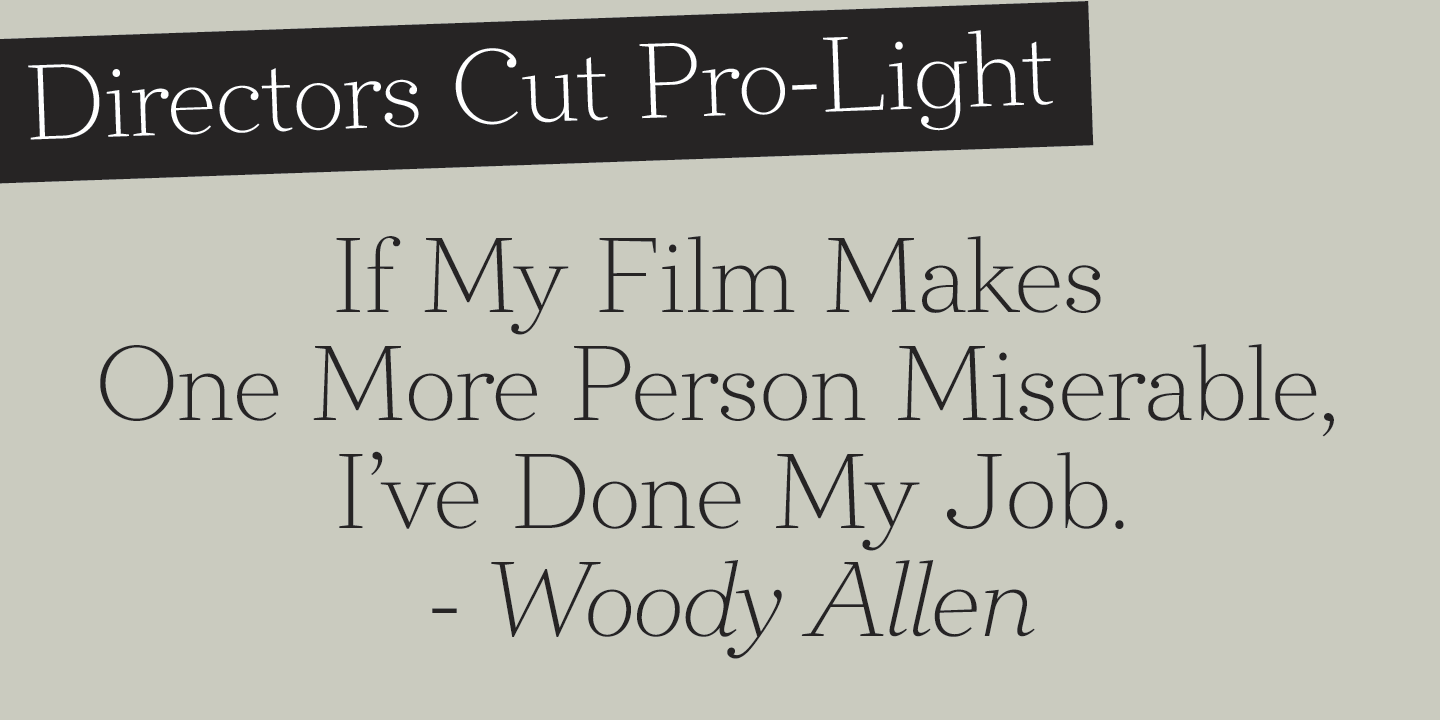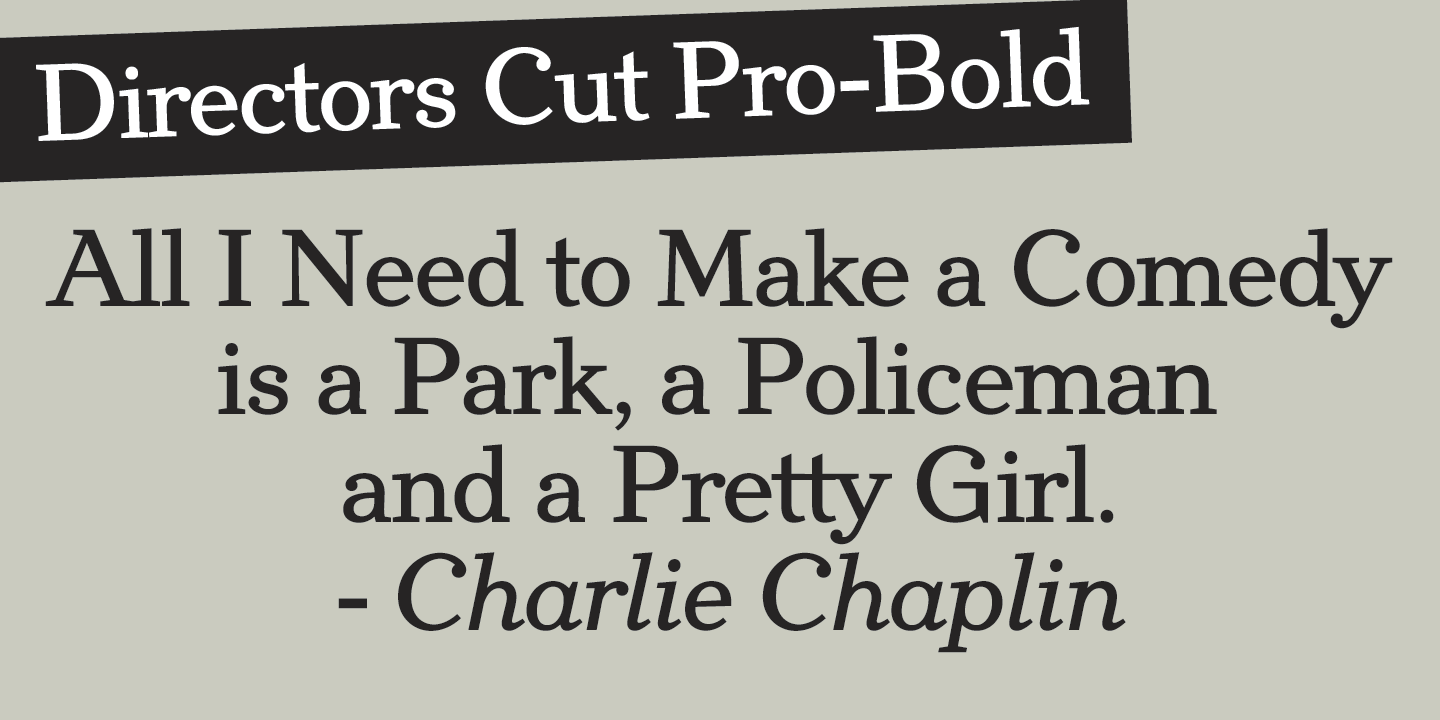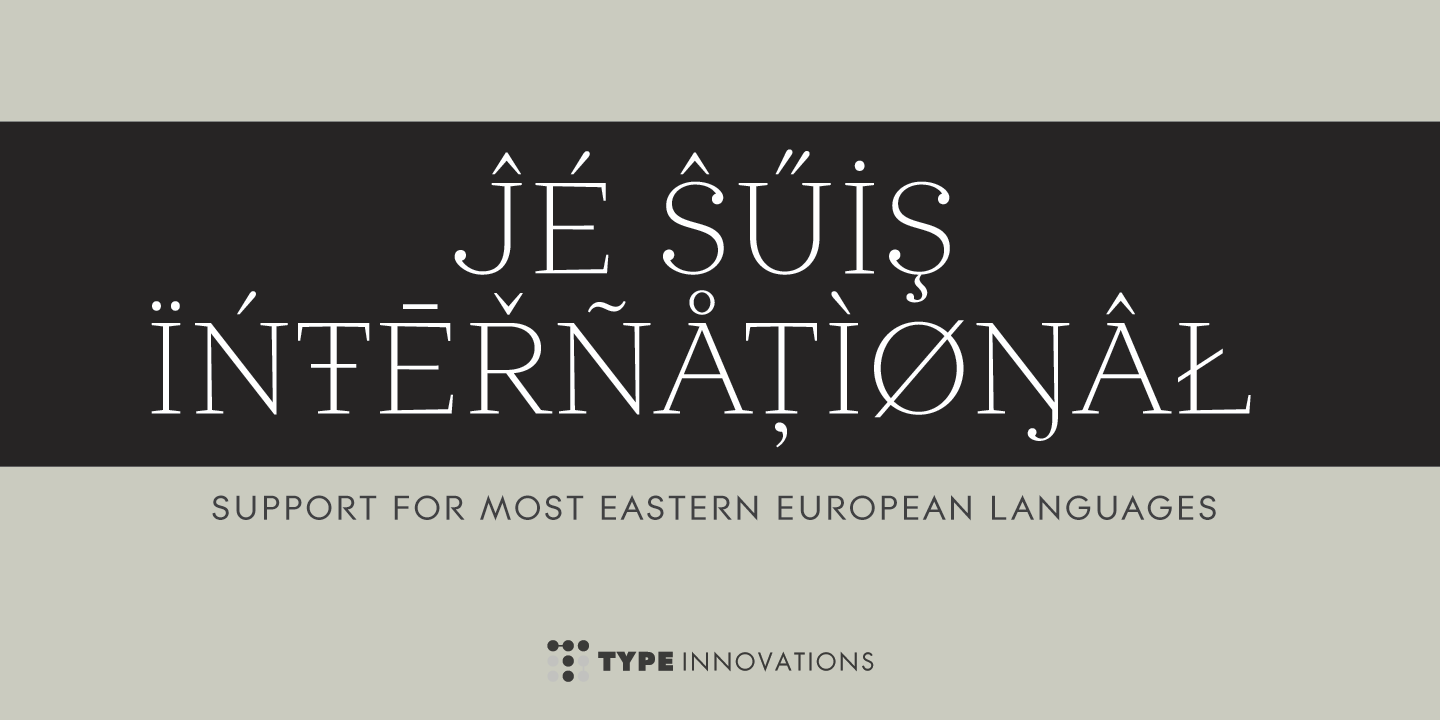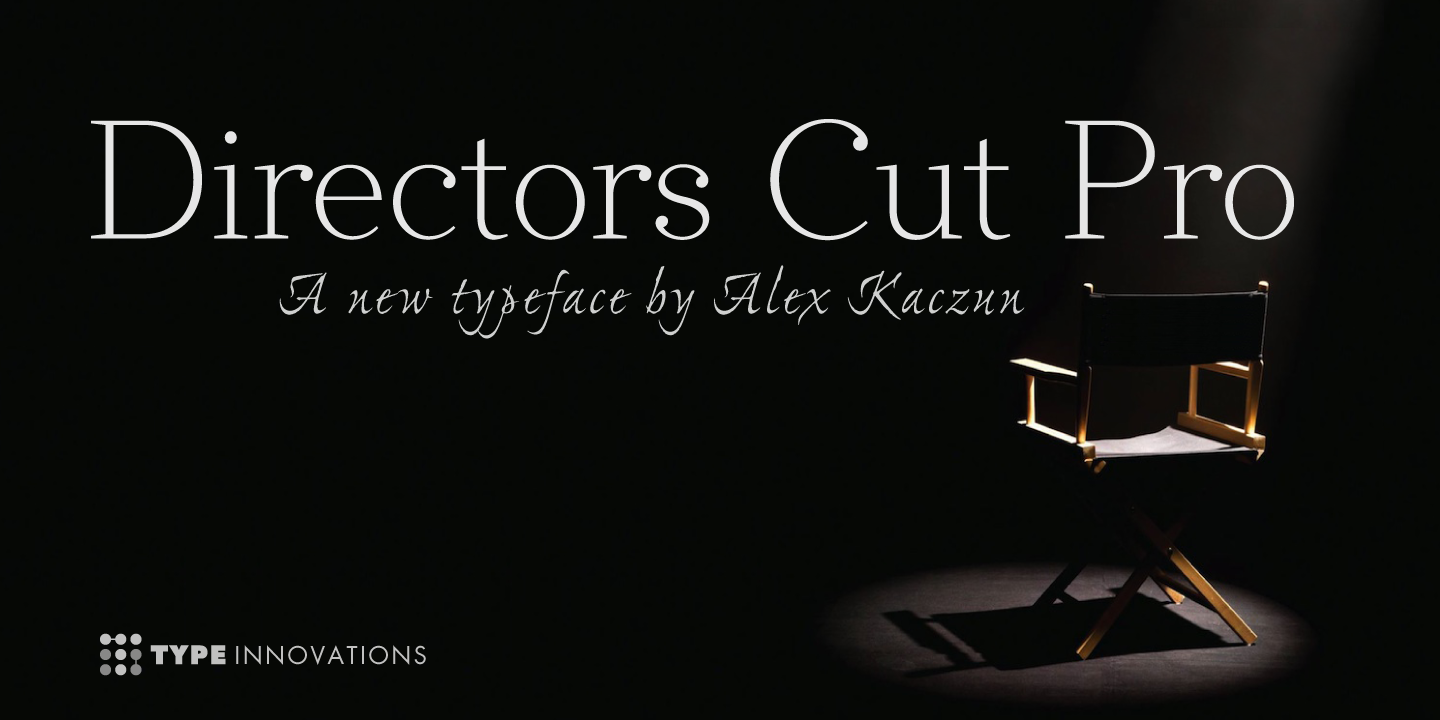
Directors Cut Pro Collection
Directors Cut Pro is a compelling new font series designed by Alex Kaczun. It recently won second place—accommodation in the Canberra Typeface Competition. This handsome Geometric Antique serif design is based on the early 19-century Moderns and Scotch styles, infused with the warm charm of traditional antique, added for interest. Capturing the best of both ages: it’s warm, comforting and persuasive.
Directors Cut Pro’s graceful aspects naturally invite uses at large sizes, for which we have created a stunning and elegant lighter weight. But, this workhorse typeface series incorporates a solid regular weight, along with its italic—ideal for a multitude of text purposes, at varying point sizes. A robust Bold weight is available for headlines and emphasis.
Director Cut Pro comes with proportional, as well as, tabular lining figures for quickly setting up charts and tables. The large Pro font character set supports most Central European and many Eastern European languages.
Alex Kaczun is in the process of expanding this typeface series to include additional weights, styles and proportions. Stay tuned!